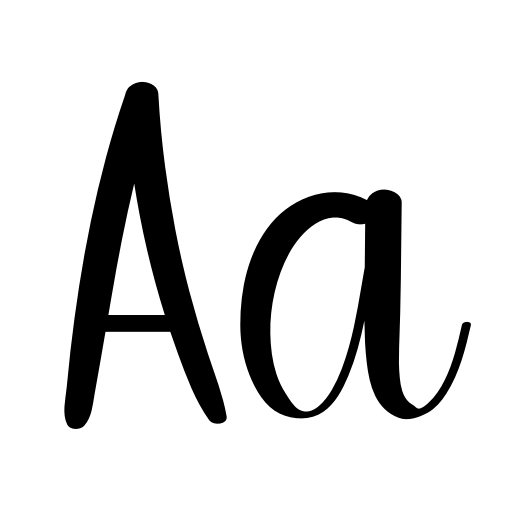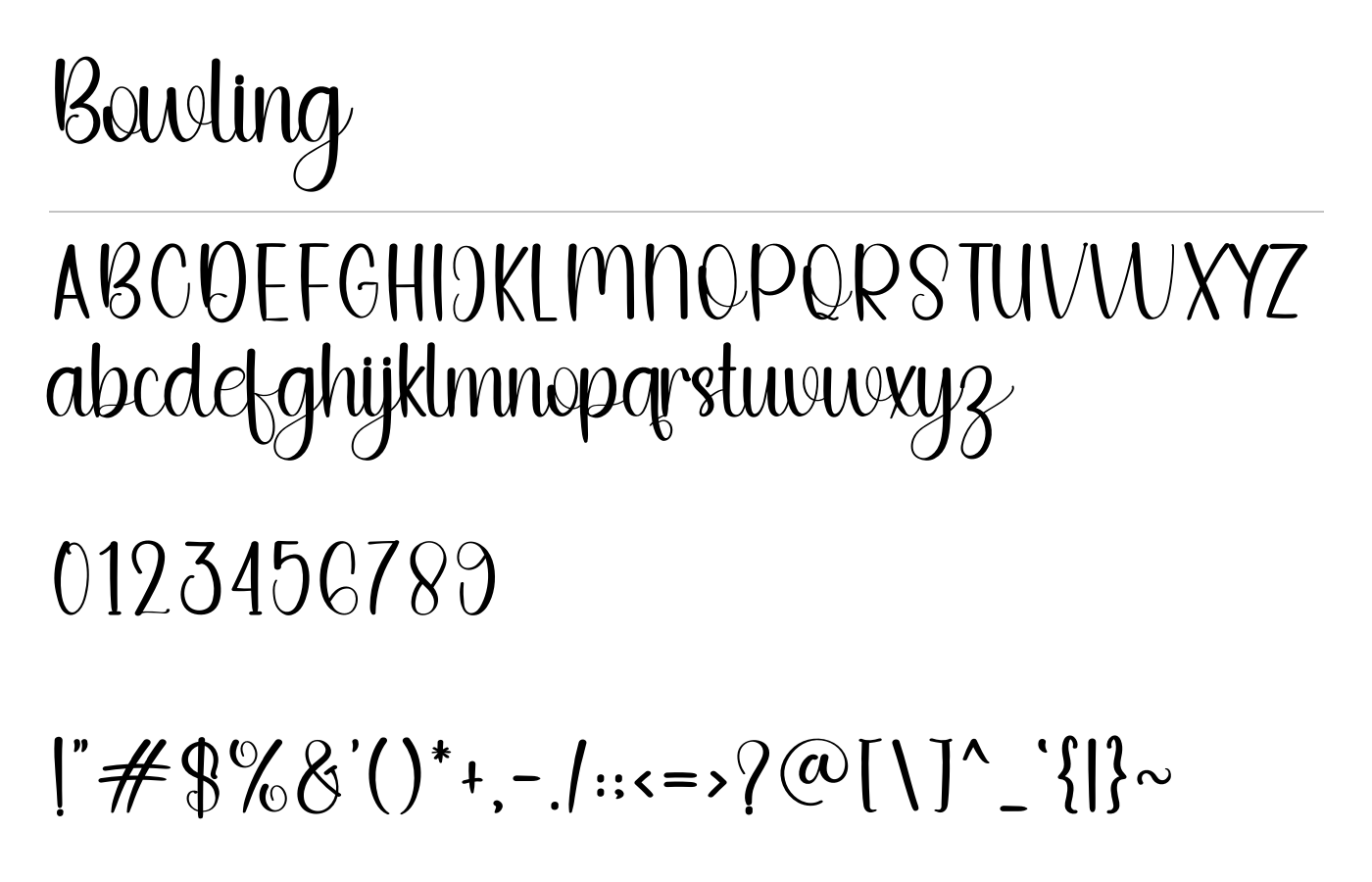
Bowling Font is a playful and elegant handwritten script featuring tall, narrow letterforms with smooth, flowing curves and delicate loops. Its light weight and airy spacing create a friendly and whimsical feel, making it ideal for creative branding, invitations, and casual editorial designs where a personal, charming touch is desired. This font’s unique blend of simplicity and decorative flair works well for projects that want to convey warmth and approachability with a hint of sophistication.
Bowling Font
About Bowling Font